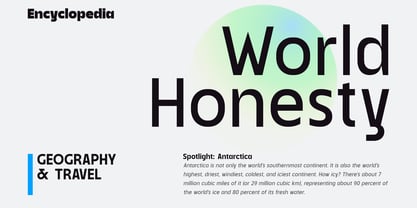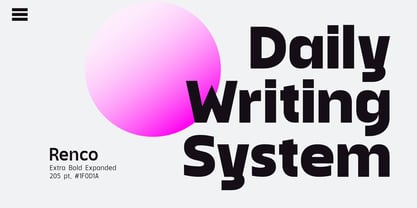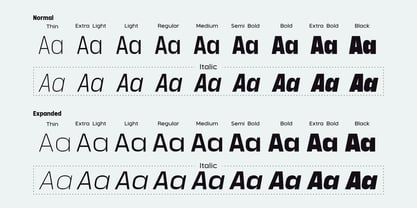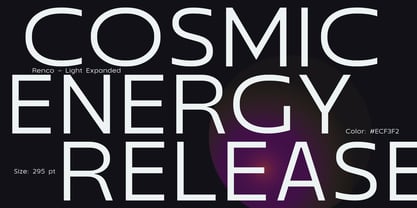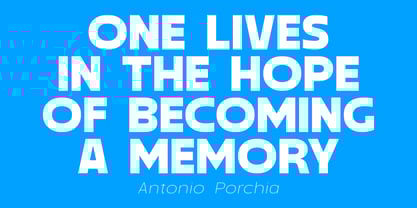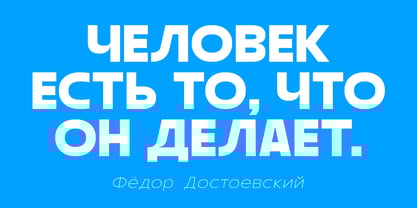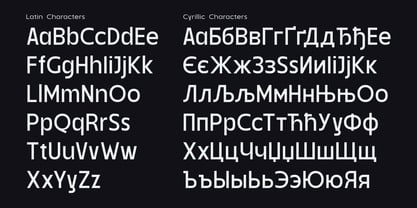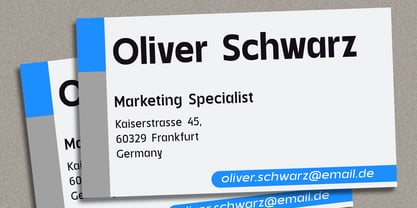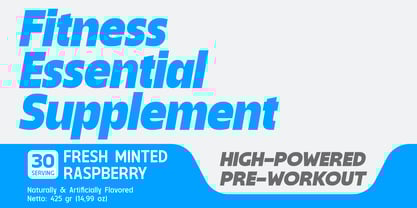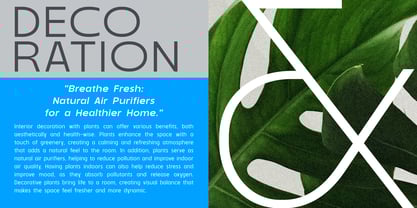
Renco
Renco – A Modern Geometric Typeface
Renco is a contemporary geometric typeface designed for versatility and clarity. With its precise structure and refined appearance, this typeface is suitable for a wide range of design applications, from branding to editorial layouts.
This type family consists of 9 weights, ranging from Thin to Black, providing flexibility for different visual needs. Each weight is available in two widths: Normal and Expanded, ensuring adaptability across various compositions. Additionally, every style includes an Italic version with a 10-degree slant, adding a dynamic touch to the design process.
Renco features vertically cut terminals, low contrast ascenders, and low contrast inktraps, giving it a distinctive yet highly readable appearance. Equipped with Cyrillic characters, it supports multiple languages, making it a practical choice for international typography.
Designed for logos, UI/UX design, advertising, editorial layouts, and digital interfaces, Renco offers a modern, polished look with geometric consistency. Whether used for bold headlines or clean body text, this typeface delivers both elegance and functionality.